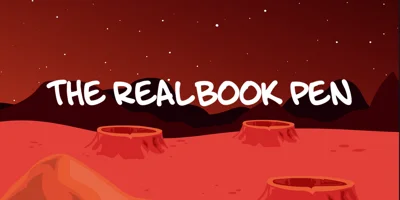
RealBook Pen Font
RealBook Pen Font is a smooth, handwritten script typeface that mimics natural penmanship with a casual and authentic vibe. Perfect for personal journals, notes, invitations, greeting cards, and lifestyle branding.
What makes RealBook Pen Font so exciting is its organic, flowing strokes that give your designs a warm, personal, and approachable feel. It captures the essence of handwritten text with clarity and charm.
The RealBook Pen Font family includes Regular and Italic styles, providing flexibility for expressive and dynamic typography.
Whether you’re creating personal stationery, book covers, or intimate branding materials, RealBook Pen Font adds genuine personality and warmth to your projects. You can test it for free, but commercial use requires a license. Let RealBook Pen bring an authentic handwritten touch to your creative work.